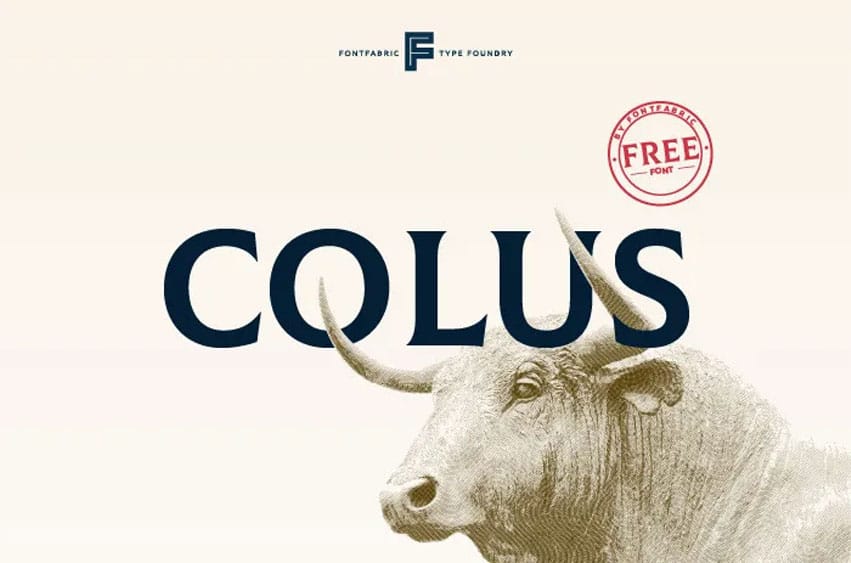
Colus Display Font
Colus Display Font is a free display font, which was designed by Stan Partalev and it was his inspiration from stone and wooden carved letters inscriptions. Through its classical look and mature features, the typeface family is suitable for stunning headlines, outstanding logos, and lovely signs.
Being the first professional font by Stan, Colus is of the broad support of many Latin and Cyrillic based languages, the proper localizations, lining numbers and old style figures. Colus pro scriptum est!